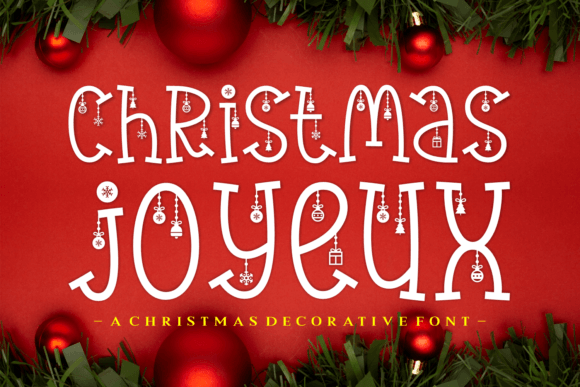
Presenting Christmas Joyeux Font, a captivating decorative font that captures the spirit of the holidays. Embark on a typographic journey with this exquisite typeface, meticulously crafted by Riman (7NTypes) to bring cheer and warmth to your creative projects.
As the snow dances outside your window, let Christmas Joyeux Font be your companion in creating heartfelt holiday cards that carry your heartfelt messages with a touch of elegance. Its graceful swirls and playful ornaments evoke the magic of the season, making every card a cherished keepsake.
With Christmas Joyeux Font, transform your digital designs into festive masterpieces. Let your website, social media posts, and digital invitations radiate holiday cheer, spreading joy and laughter with every shared message. Its versatility extends beyond the digital realm, making it a perfect choice for print projects such as posters, flyers, and brochures.
Whether you're a seasoned designer or a creative enthusiast, Christmas Joyeux Font is a must-have addition to your font collection. Its boundless potential elevates any project, adding a touch of whimsy and enchantment to your creative endeavors.